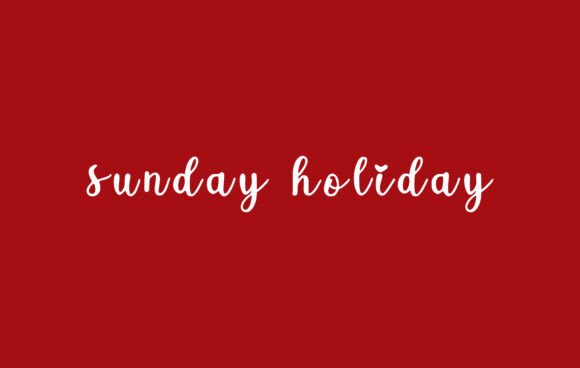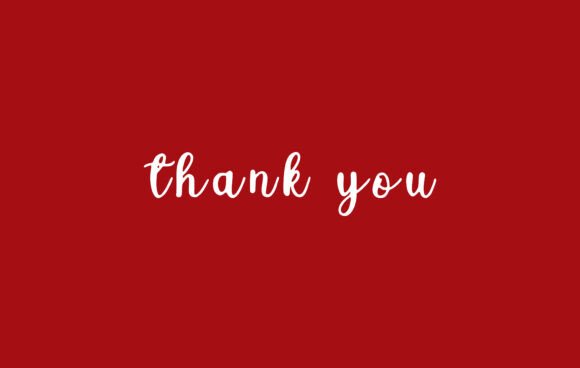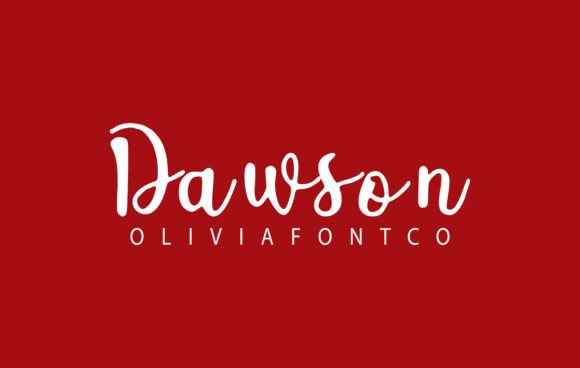
Dawson Font: The Ultimate Handwritten Font for Creative Projects
Are you looking for a font that adds a touch of romance and elegance to your creative projects? Look no further than the Dawson font. This authentic handwritten font is expertly designed to capture the hearts of designers and crafters alike, making it a true favorite among creative enthusiasts.
The Characteristics of Dawson Font
Dawson font boasts a unique blend of legibility and aesthetics, making it perfect for a wide range of applications. Its romantic touch and fluid strokes give it a distinctive feel that sets it apart from other fonts. Whether you’re looking to create stunning magazine headlines, eye-catching social media graphics, or beautiful wedding invitations, Dawson font is the perfect choice.
Why Choose Dawson Font?
So, what makes Dawson font stand out from the crowd? Here are just a few reasons why designers and crafters love this font:
• Legibility: Dawson font is incredibly easy to read, making it perfect for body text or title headers.
• Romantic touch: The font’s fluid strokes and elegant feel add a touch of romance to any design.
• Versatility: Dawson font is suitable for a wide range of creative projects, from magazine headlines to wedding invitations.
• Authentic handwritten feel: The font’s handwritten feel gives it a unique and personal touch that sets it apart from other fonts.
Dawson font is perfect for a wide range of creative projects, including:
• Magazine headlines: Add a touch of elegance and sophistication to your magazine headlines with Dawson font.
• Social media graphics: Create eye-catching social media graphics that stand out from the crowd with Dawson font.
• Branding: Use Dawson font to create a unique and memorable brand identity that sets you apart from the competition.
• Wedding invitations: Add a touch of romance and elegance to your wedding invitations with Dawson font.
• Cards: Create beautiful and personalized cards for any occasion with Dawson font.
Tips for Using Dawson Font
Here are a few tips for getting the most out of Dawson font:
• Experiment with font sizes: Dawson font looks great in a variety of font sizes, from large title headers to smaller body text.
• Pair with other fonts: Try pairing Dawson font with other fonts to create a unique and visually appealing combination.
• Use for headlines and titles: Dawson font is perfect for headlines and titles, but it also looks great as body text.
In conclusion, Dawson font is a versatile and elegant handwritten font that is perfect for a wide range of creative projects. Its romantic touch, legibility, and authentic handwritten feel make it a true favorite among designers and crafters. Whether you’re looking to create stunning magazine headlines, eye-catching social media graphics, or beautiful wedding invitations, Dawson font is the perfect choice. So why wait? Give Dawson font a try today and take your creative projects to the next level!